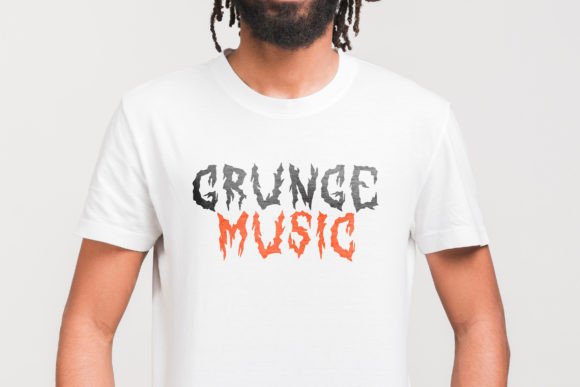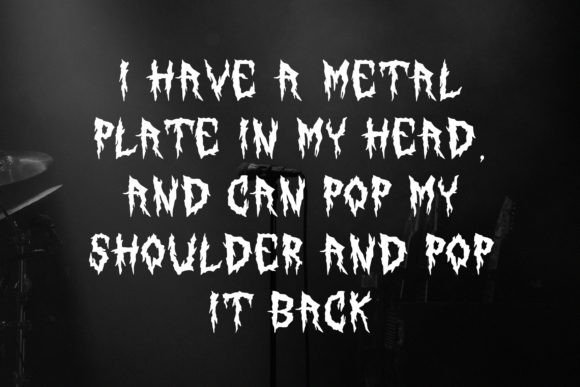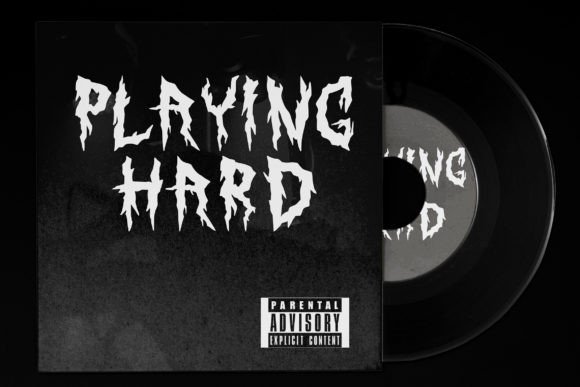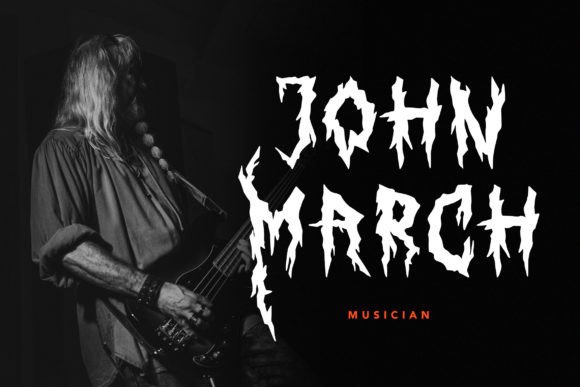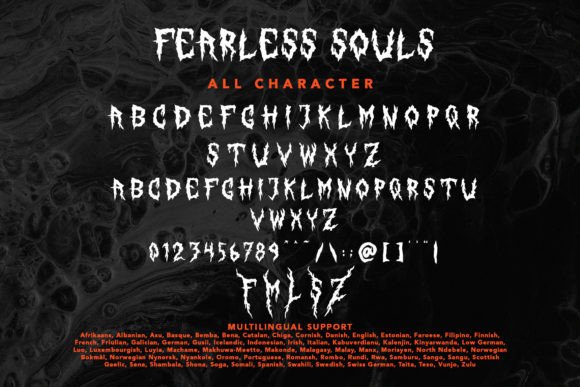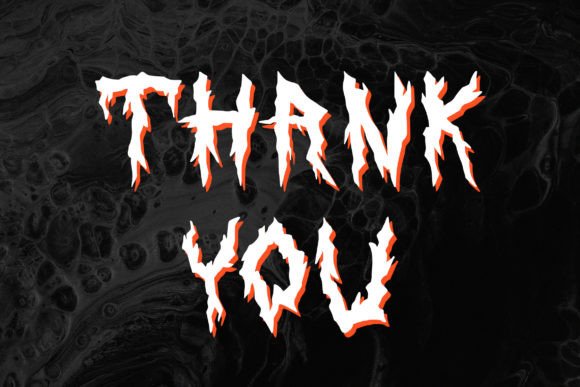
The Fearless Souls Font: A Spooky Display Font for Your Halloween and Horror Projects
As a designer, I’ve had my fair share of late nights searching for the perfect font to complete a project. One of my most memorable experiences was working on a Halloween-themed design for a client who wanted something that would send shivers down their audience’s spines. I scoured the internet for hours, but nothing seemed quite right – until I stumbled upon the Fearless Souls font. This scary and spooky display font has been a game-changer for my horror-themed projects, and I’m excited to share my experience with you.
An Honest Review of Fearless Souls Font
So, what makes Fearless Souls font so special? Let’s dive into the good stuff and some of its quirks.
- ✨ Unique and eye-catching design: Fearless Souls font stands out from the crowd with its bold, eerie letters that are perfect for grabbing attention.
- ✅ Perfect for horror and Halloween themes: The font’s spooky vibe makes it an excellent choice for any project that requires a creepy atmosphere.
- 🔥 High-quality and versatile: Fearless Souls font can be used for a wide range of projects, from posters and flyers to social media graphics and more.
While Fearless Souls font is an excellent choice for many projects, there are a few things to keep in mind:
- 🤔 Limited use for body text: Due to its bold and decorative nature, Fearless Souls font might not be the best choice for long blocks of text.
- ⚠️ May require additional editing for certain platforms: Some platforms or software might not support all the font’s features, so be prepared to do some extra editing.
Exploring OpenType Features, Glyphs, and Stylistic Alternates
Fearless Souls font comes with a range of OpenType features, glyphs, and stylistic alternates that can enhance your designs. Here are a few tips on how to access and use these features:
- OpenType features: These features allow you to customize the font’s appearance, such as enabling or disabling ligatures, stylistic sets, and more.
- Glyphs: Glyphs are special characters that can add an extra layer of creativity to your designs. Fearless Souls font comes with a range of glyphs, including spooky symbols and icons.
- Stylistic alternates: These alternates allow you to switch between different font styles, such as bold, italic, or oblique.
The Backstory Behind Fearless Souls Font
The Fearless Souls font was designed with one goal in mind: to create a font that would evoke a sense of fear and unease. The designer, who wishes to remain anonymous, drew inspiration from classic horror movies, haunted mansions, and creepy abandoned places. The result is a font that’s both terrifying and mesmerizing.
| Font Name | Fearless Souls Font |
| Author | Hatf Type |
| What type of projects is Fearless Souls font best suited for? | Horror and Halloween-themed projects, such as posters, flyers, social media graphics, and more. |
| Does Fearless Souls font come with any additional features or glyphs? | Yes, Fearless Souls font comes with a range of OpenType features, glyphs, and stylistic alternates that can enhance your designs. |